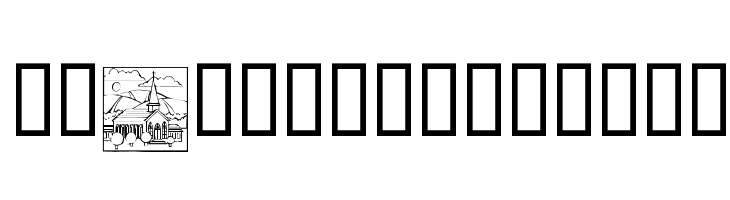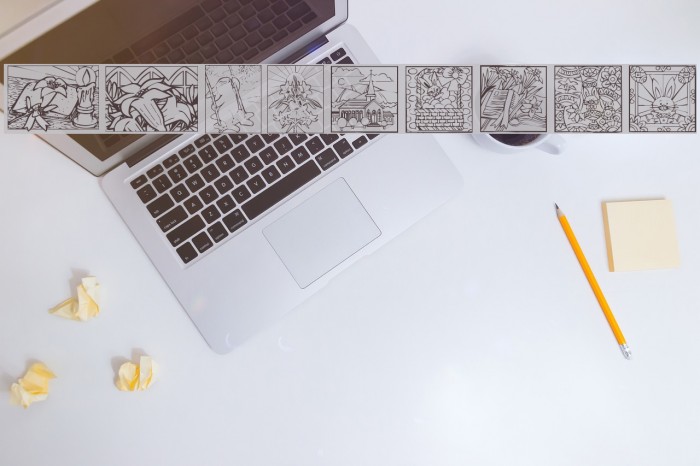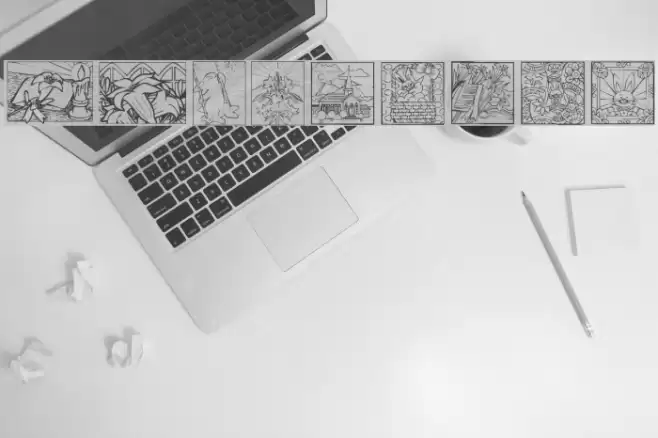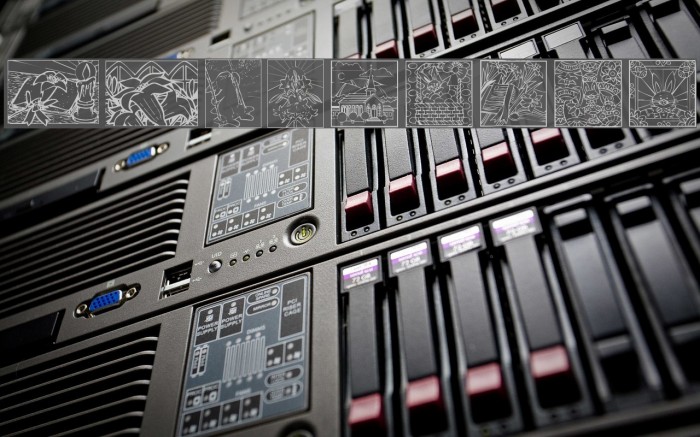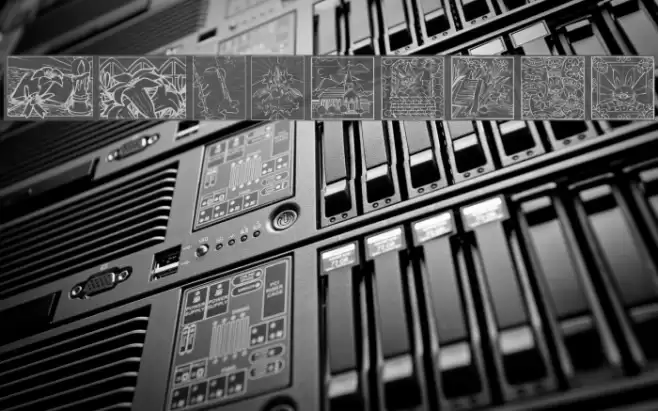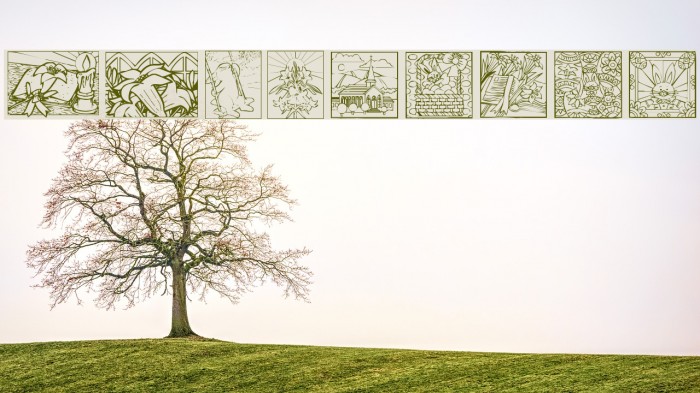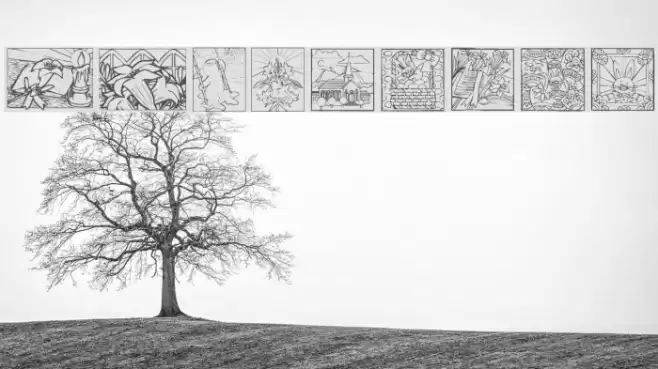
KR Easter Squares Font
KR Easter Squares Description
This decorative font features a series of intricate square designs, each containing unique Easter-themed illustrations. The squares are filled with detailed line art depicting various scenes and symbols associated with Easter, such as eggs, bunnies, and floral motifs. The style is reminiscent of stained glass windows, with bold outlines and intricate internal patterns. Each character is a standalone piece of art, making it ideal for creative and festive projects. The font is highly decorative, focusing more on visual appeal than readability, making it perfect for artistic endeavors.
| Use Case | Logos, Art projects, Decorative elements |
| Proposed Projects | Ideal for Easter cards, festive decorations, scrapbooking, and creative art projects. |